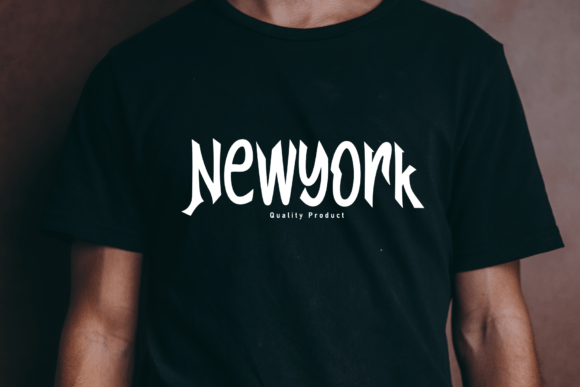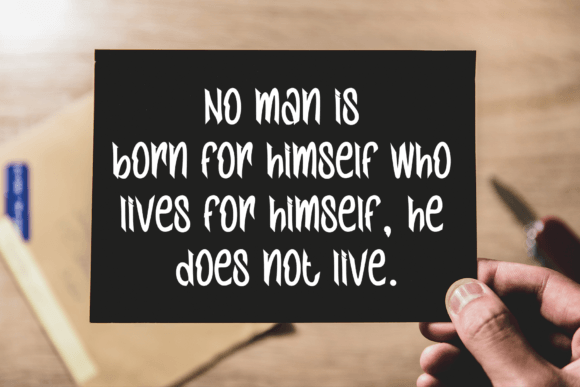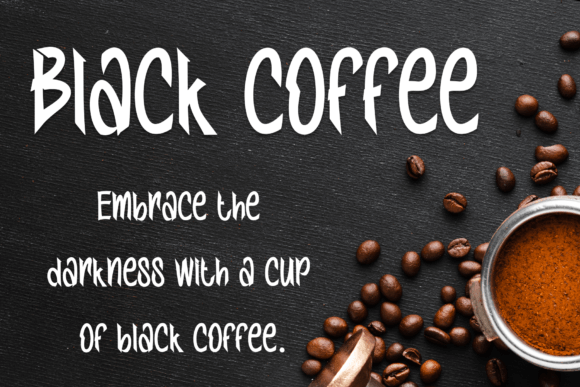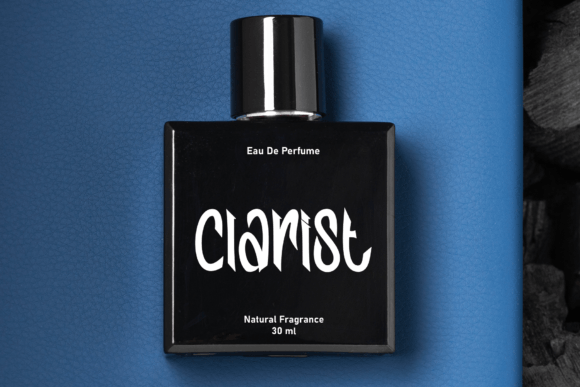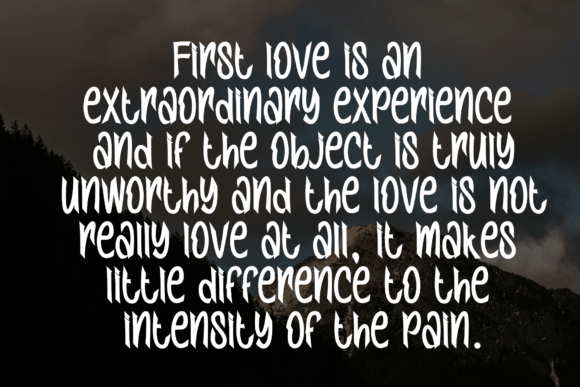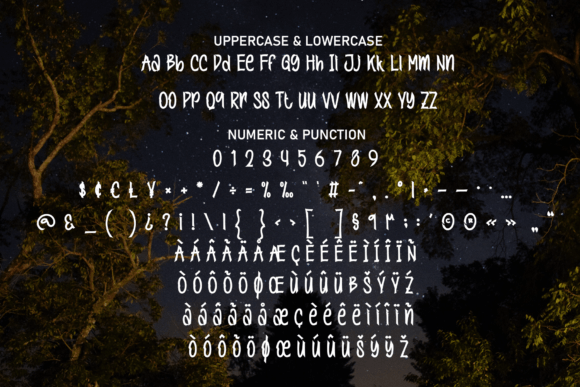
Introduction to Night Wild Font
Have you ever found yourself scrolling through design inspiration boards, searching for the perfect font to give your creative project that extra oomph? You know, that special something that makes your wedding invitations stand out, or your birthday cards feel extra special? For many designers, this moment is a thrill – and it’s exactly what makes Night Wild Font so valuable.
This free download is more than just a pretty face – it’s a high-quality design resource that can elevate your work with its sweet and friendly handwritten style. Whether you’re working on a project that needs a touch of whimsy or a dash of romance, Night Wild Font is the perfect addition to your design toolkit.
Key Features of Night Wild Font
• High-quality design resource with a unique, creative feel perfect for various projects
• Comes with a transparent background, allowing for seamless integration with any design
• Supports various languages, making it a versatile design resource for international projects
• Features a bold, eye-catching design that’s perfect for creative projects and presentations
• Includes a comprehensive character set, including uppercase and lowercase letters, numbers, and punctuation
Honest Review: Night Wild Font
As a designer, I’m always on the lookout for high-quality design resources that can elevate my creative projects. Recently, I came across the Night Wild Font, and I’m excited to share my honest review.
First impressions are everything, and the Night Wild Font did not disappoint. ✨ The font’s unique blend of modern and wild elements caught my eye, and I loved the transparent background option, which makes it easy to use on any design surface.
• What works well:
• High-quality design that’s perfect for creative projects
• Transparent background option for seamless integration
However, I did encounter a few limitations. ⚠️ The font may not be suitable for all design styles, and the limited character set may require some creative workarounds.
Overall, I’m impressed with the Night Wild Font. It’s a great addition to any designer’s toolkit, and I appreciate the transparent background option and high-quality design. If you’re looking for a unique font to elevate your creative project, I’d definitely recommend giving it a try.
Tips for Getting the Most Out of Night Wild Font
To get the most out of the Night Wild Font, use it in combination with other design elements to create a unique and eye-catching design. Experiment with different font sizes, colors, and arrangements to find the perfect look for your creative project.
Common Use Cases for Night Wild Font
The Night Wild Font is perfect for use in creative projects such as social media graphics, blog posts, and presentations. Its high-quality design and transparent background make it ideal for use in a variety of design applications.
Alternatives to Night Wild Font
Pacifico Font is a high-quality, elegant script font perfect for creative projects that require a touch of sophistication. It features a transparent background, making it ideal for overlaying text on images. Use it for wedding invitations, branding, and other design elements that demand a sense of luxury.
Pacifico Font is a great alternative to Night Wild Font as it offers a more refined and polished look. While Night Wild Font is ideal for edgy designs, Pacifico Font excels in providing a more classic and sophisticated feel.